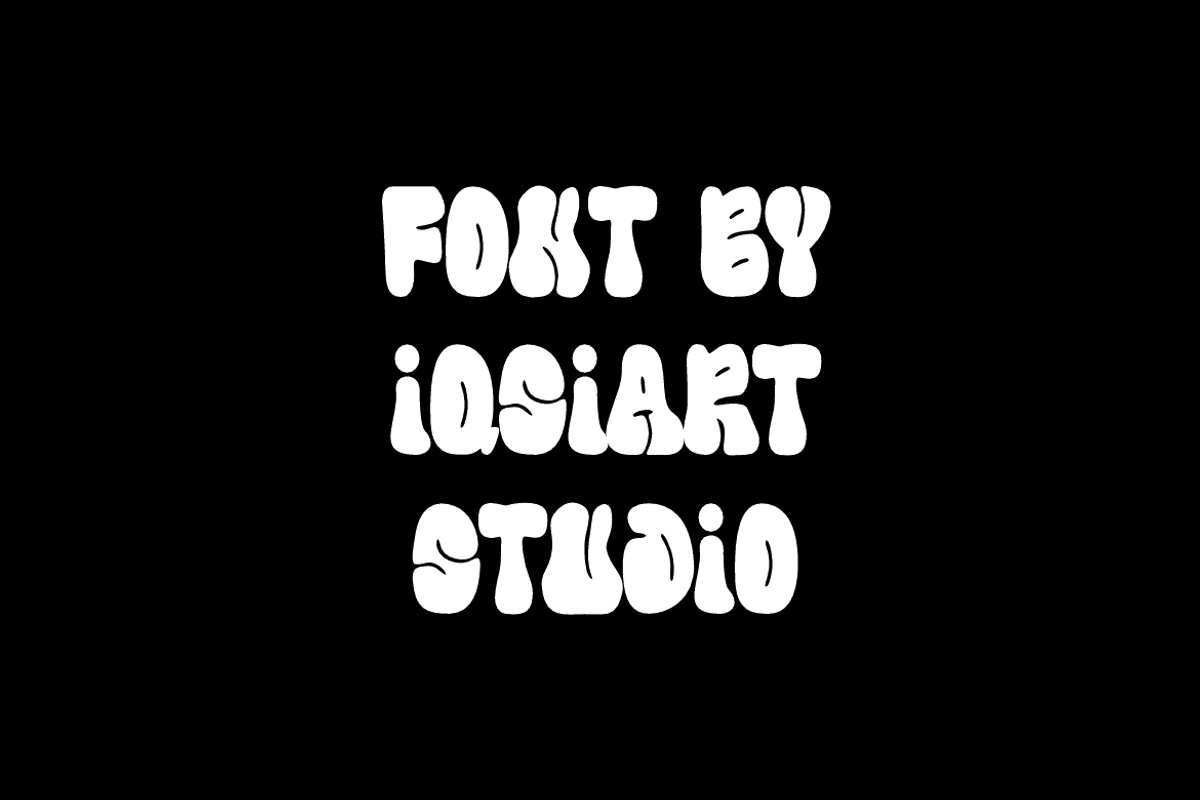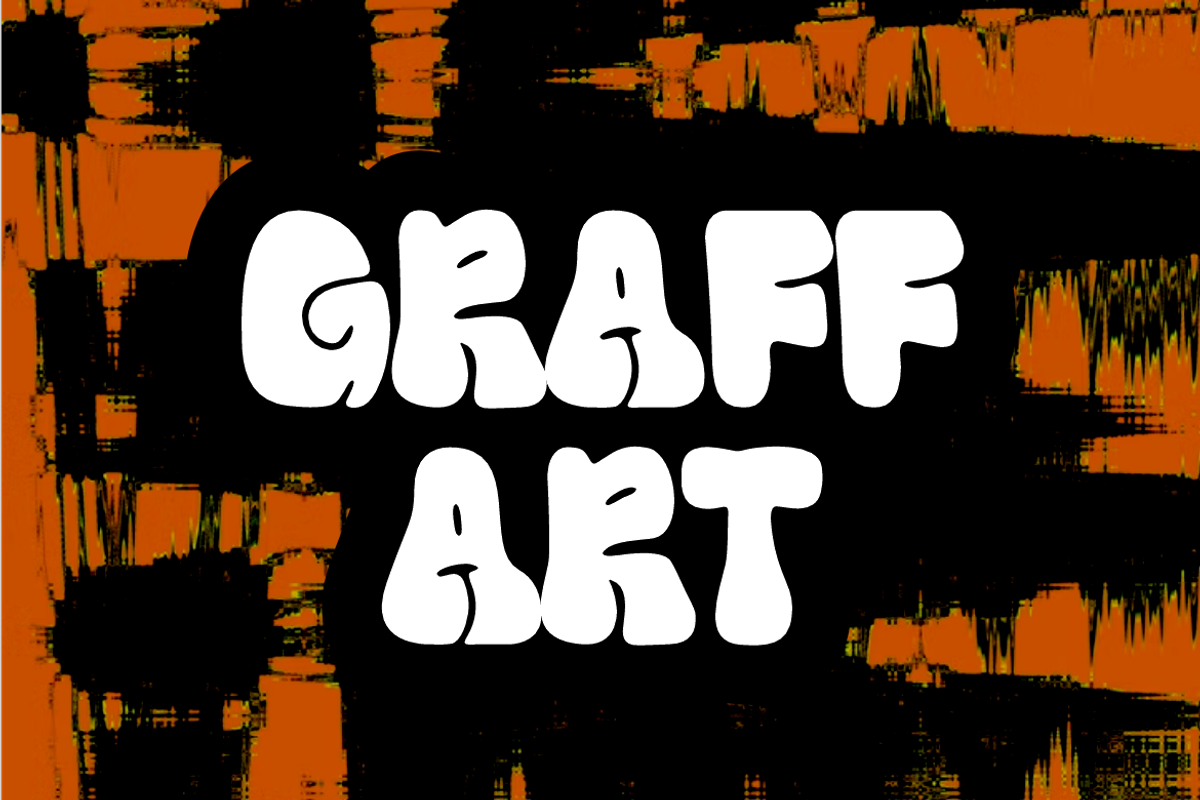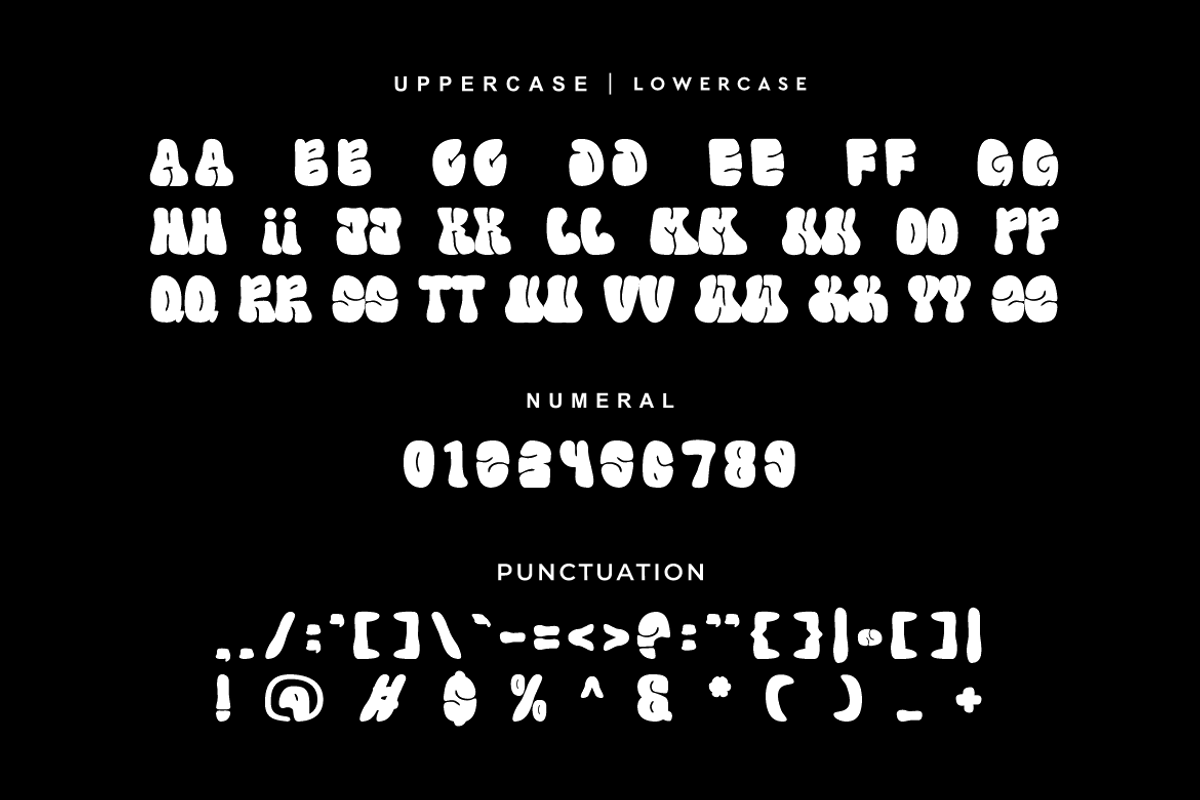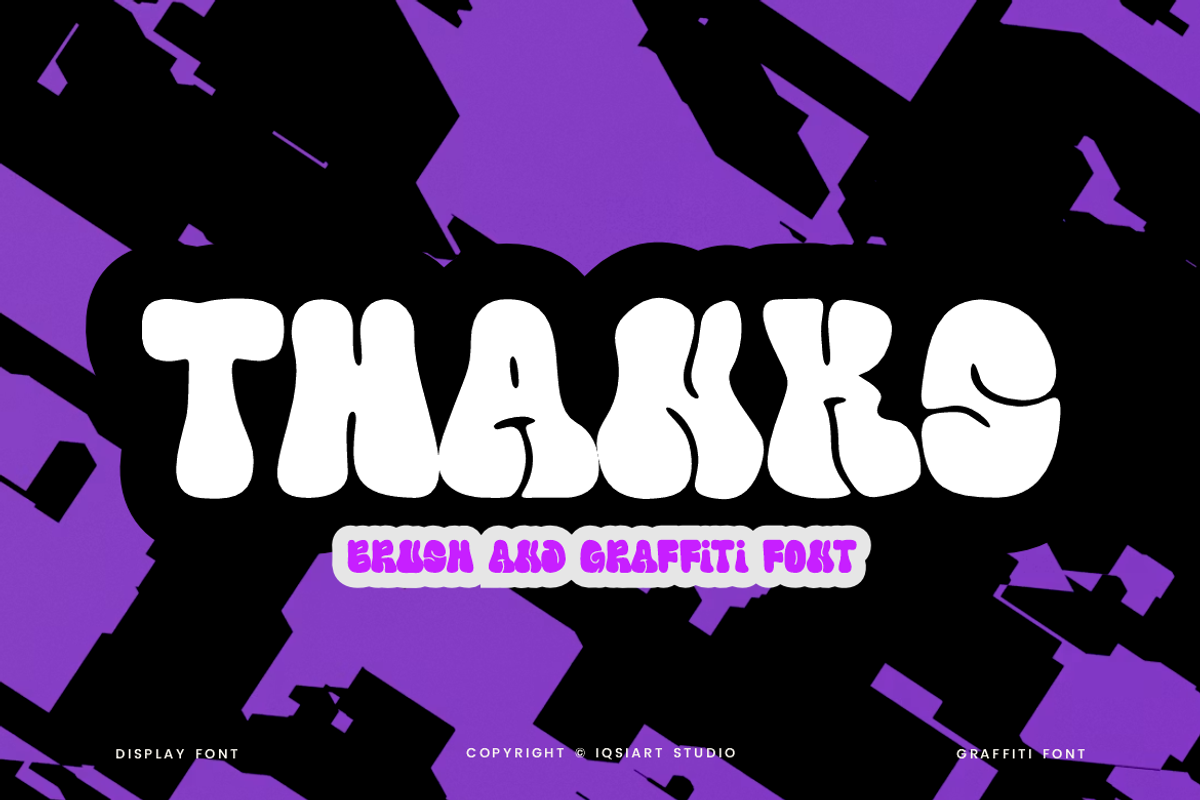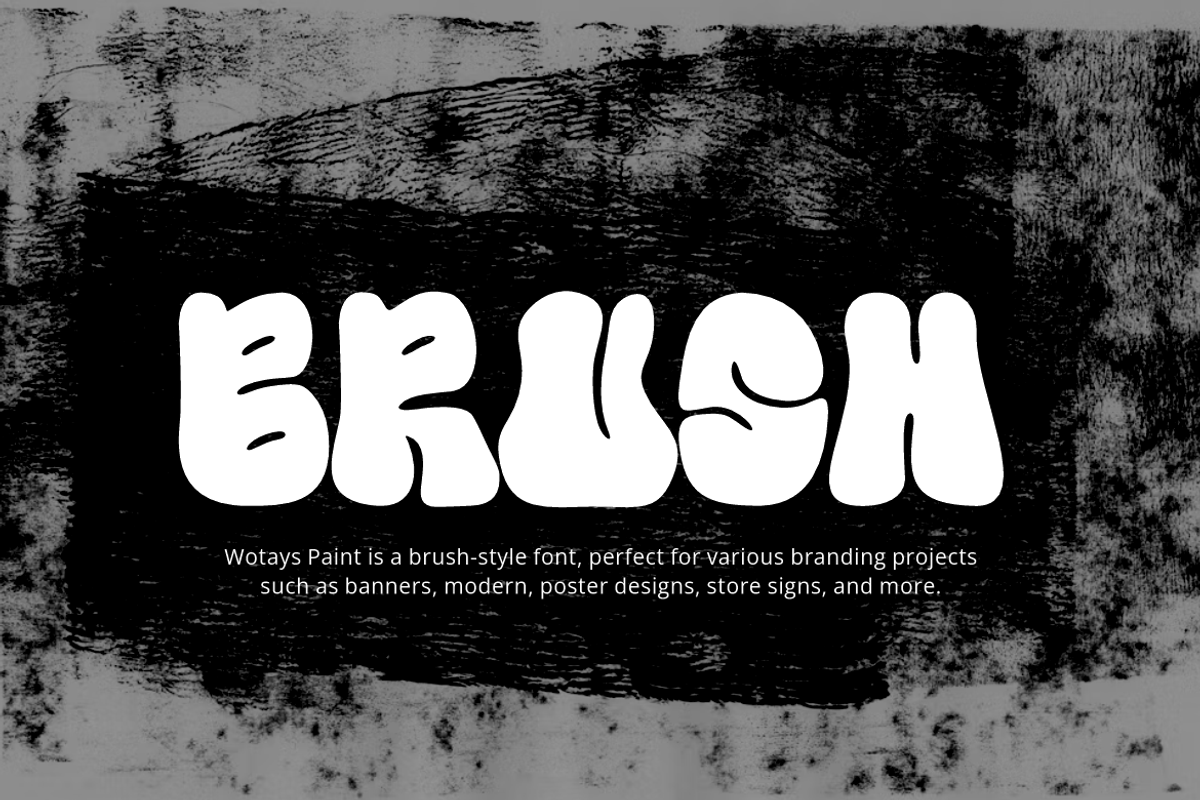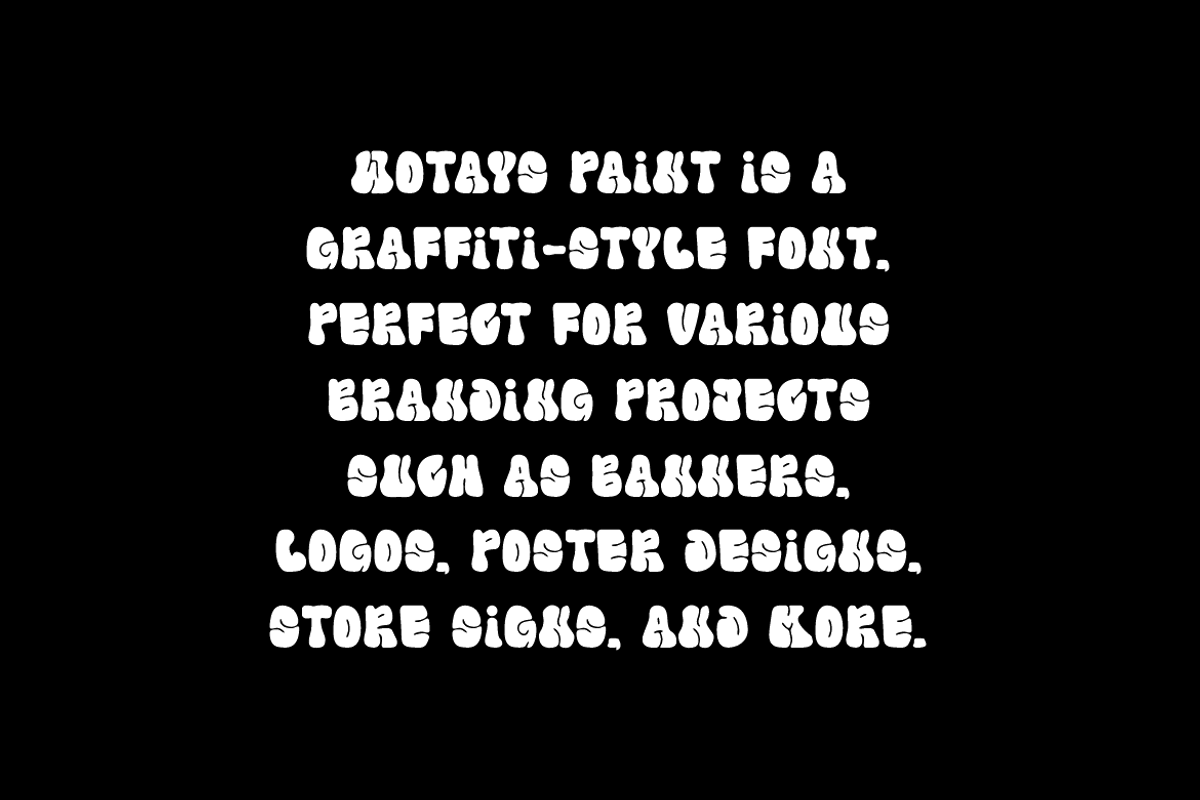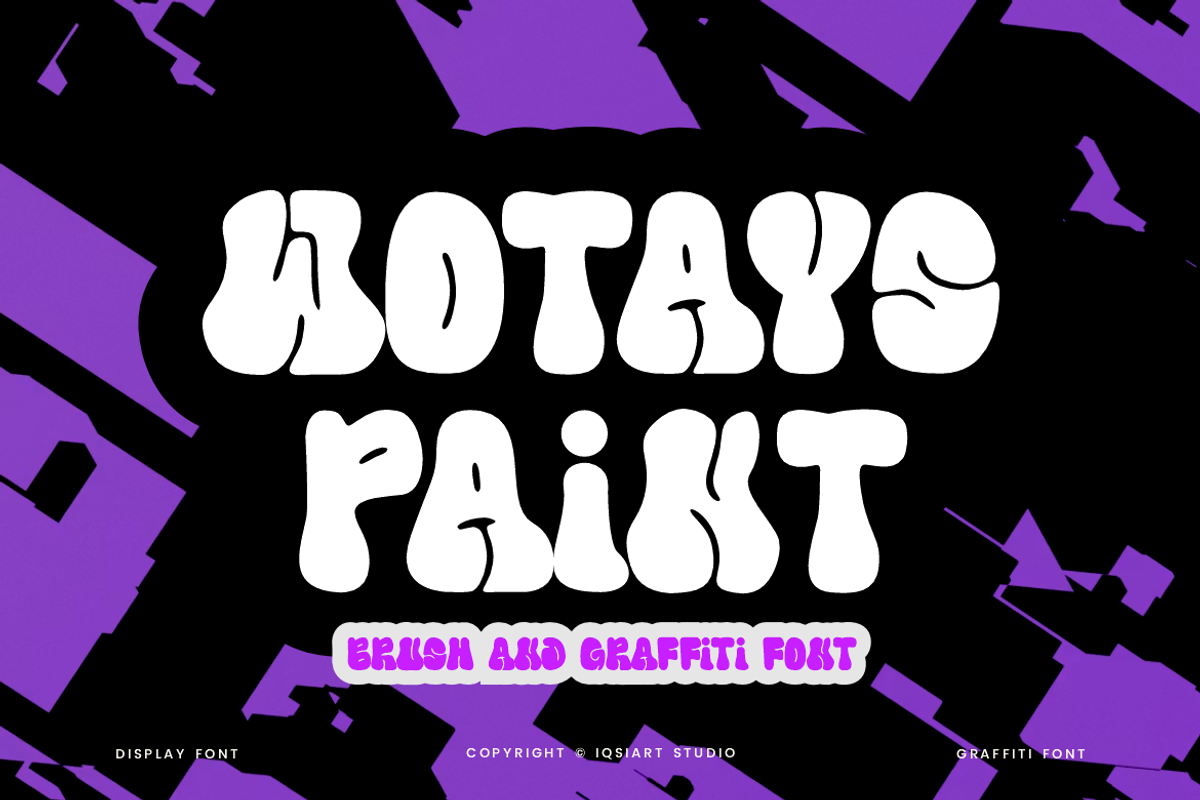
Wotays Paint - Graffiti Font
Wotays Paint Font is a bold and authentic display typeface
that suits a variety of design needs. We offer a wide range of themes